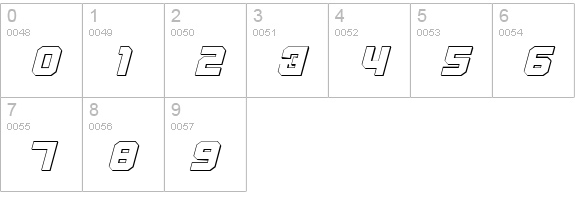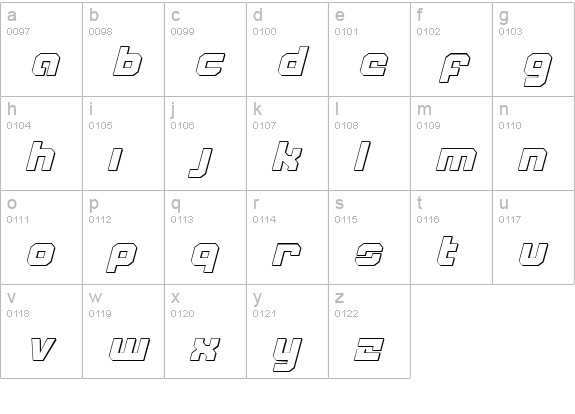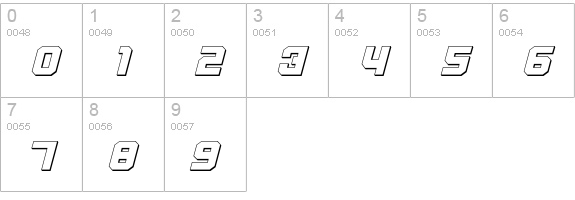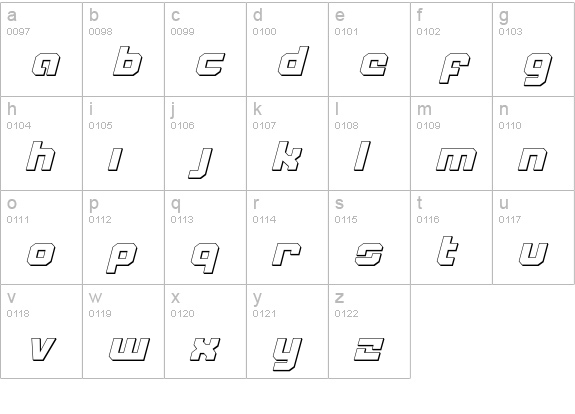
Weaponeer Shadow Italic is a distinctive, italic variant in the Weaponeer typeface family \xE2\x80\x94 well suited to design and typography projects.
Embrace the sleek and mysterious allure of Weaponeer Shadow Italic font, a captivating typeface that exudes a sense of intrigue and sophistication. With its unique shadow effect and italic styling, this font adds a touch of drama and elegance to any design project. What makes Weaponeer Shadow Italic font even more appealing is that it is freely available for download at FontsMarket.com. Whether you're working on a poster, logo, website, or any other creative endeavor, this font will elevate your work with its bold presence and artistic flair. Don't miss out on the opportunity to enhance your designs with the striking beauty of Weaponeer Shadow Italic font. Download it today and unleash your creativity with this exquisite typeface that is sure to make a lasting impression.